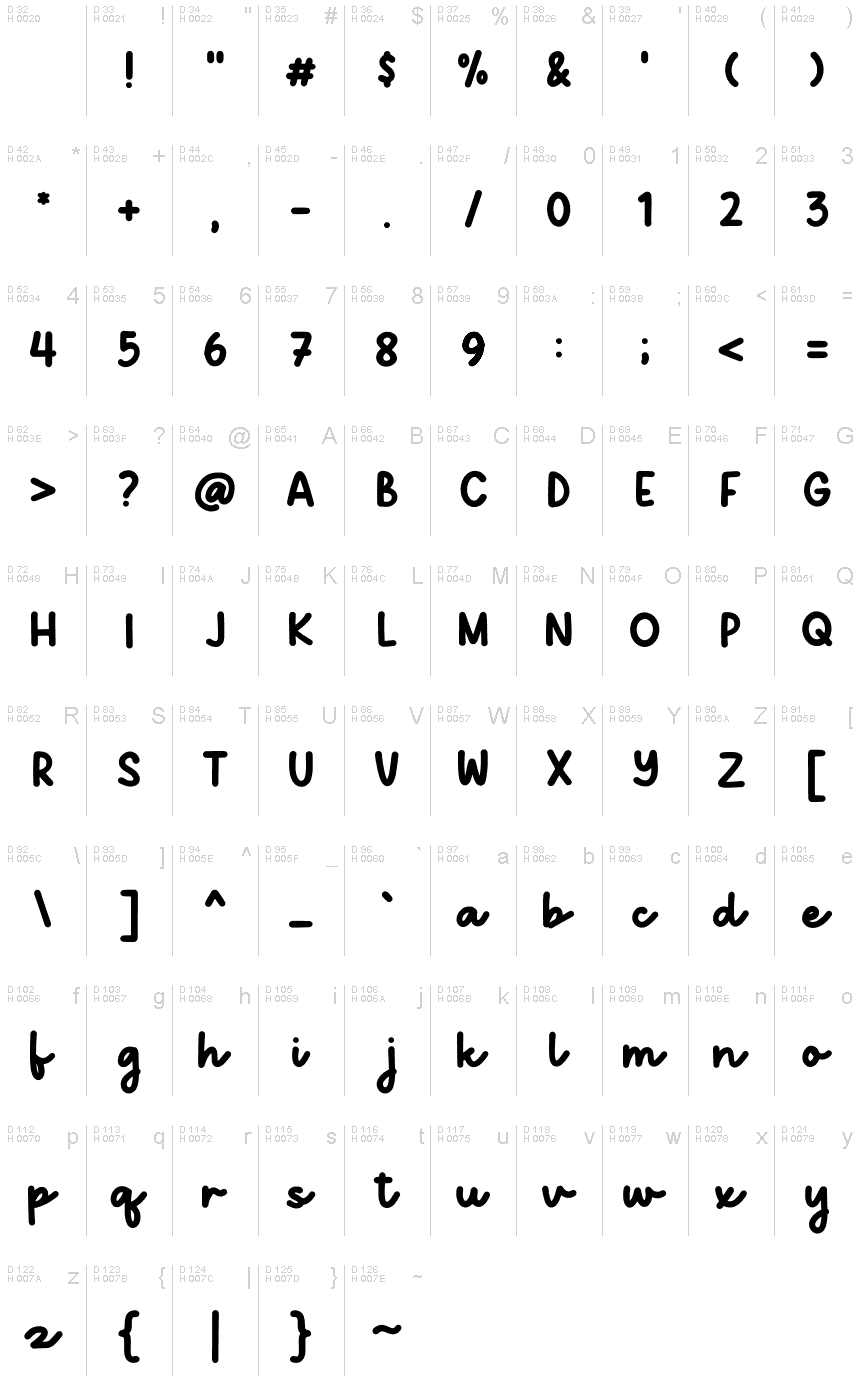
Quichflour Demo
The Quichflour font designed by Allouse.Studio is a semi-wide, handwritten typeface. This fun and quirky typeface is perfect for creative projects or adding a personal touch to designs. It's ideal for crafting invitations, logos and flyers that stand out from the crowd! Quichflour also works great with titles and headlines, offering an alternative to traditional styles. Perfect for adding a unique twist to your project!